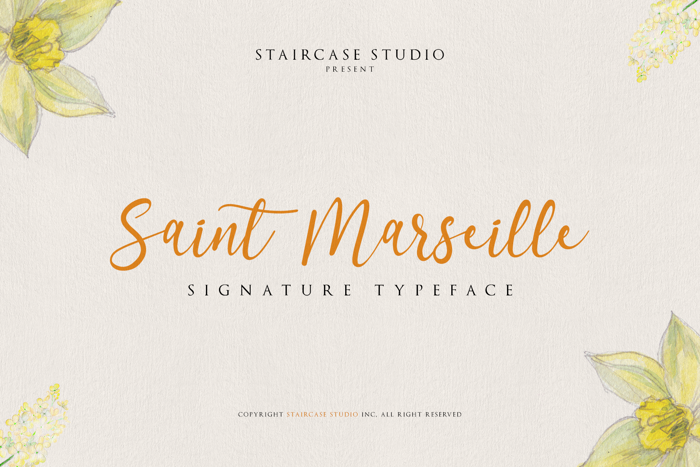
Saint Marseille Font
Saint Marseille Signature Typeface. A collection of letters and numbers suitable your projects also great for Logotype, Branding Design, Logo Design, Digital Lettering Arts, T-Shirt/Apparel, Poster, Magazine, Signs, Advertising Design, and any design needs.